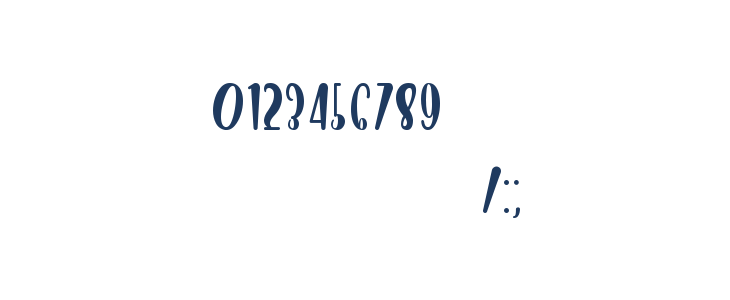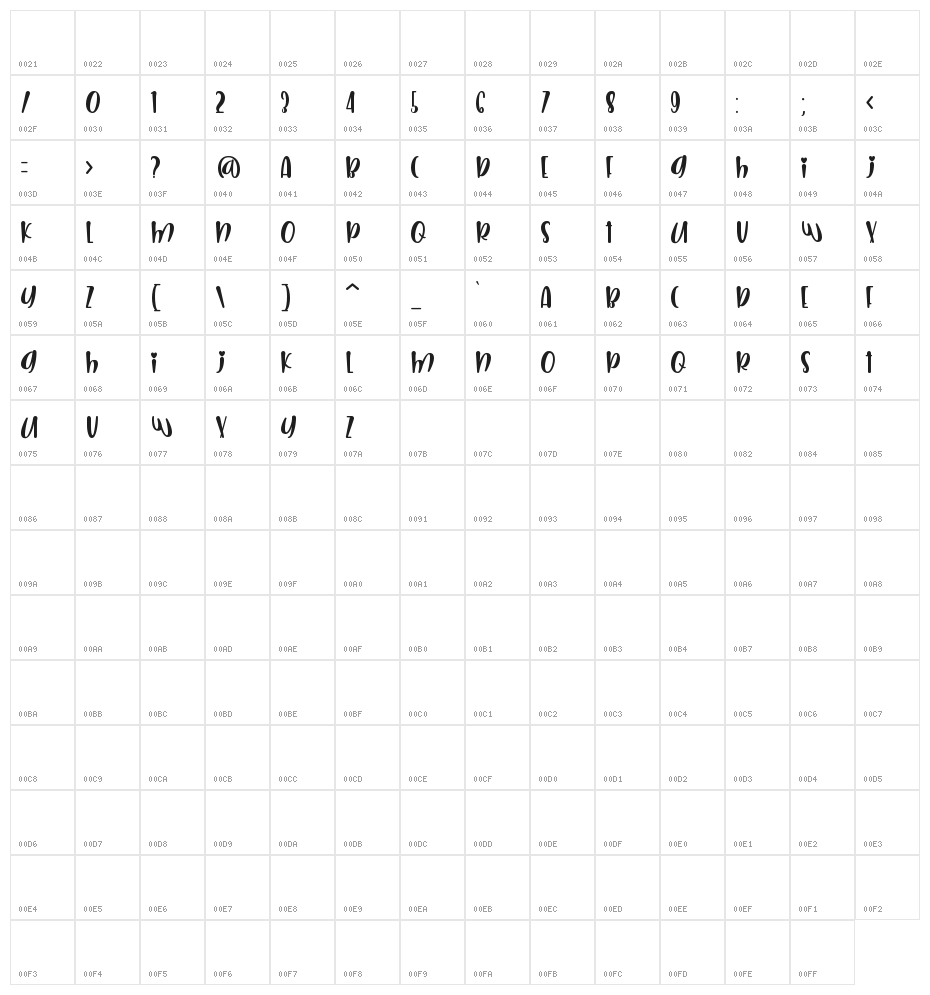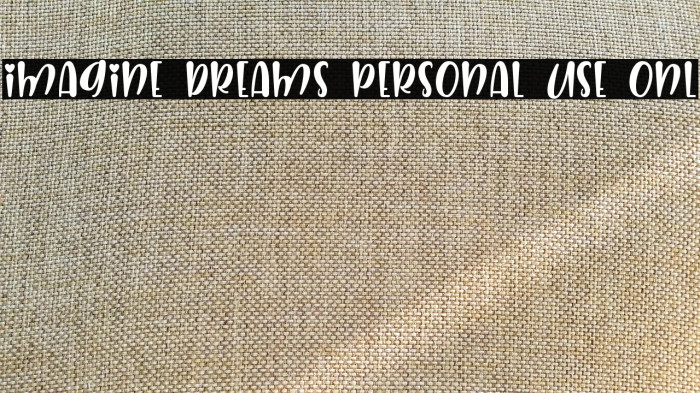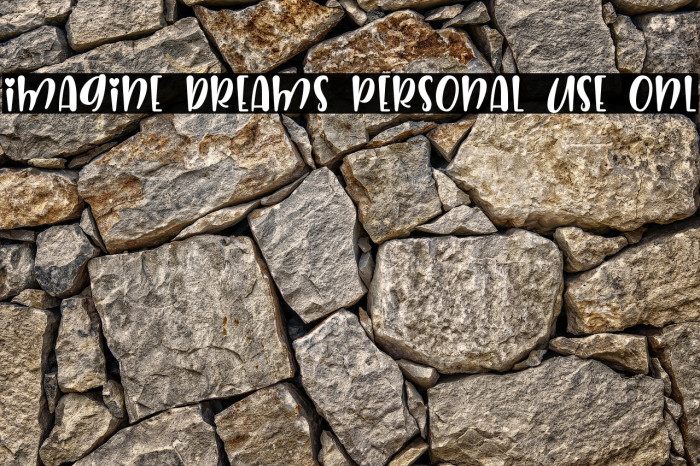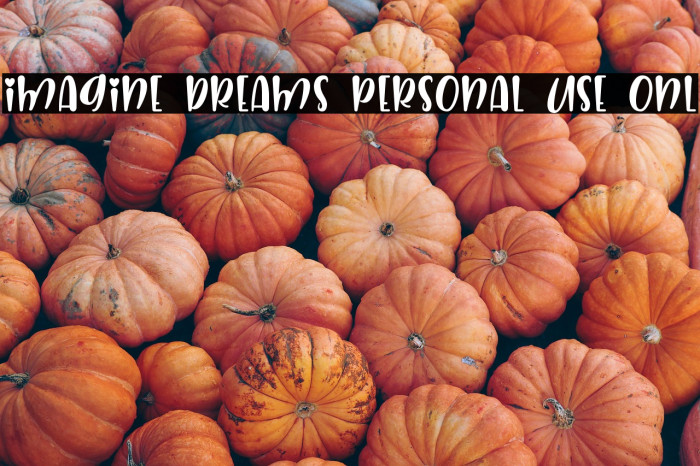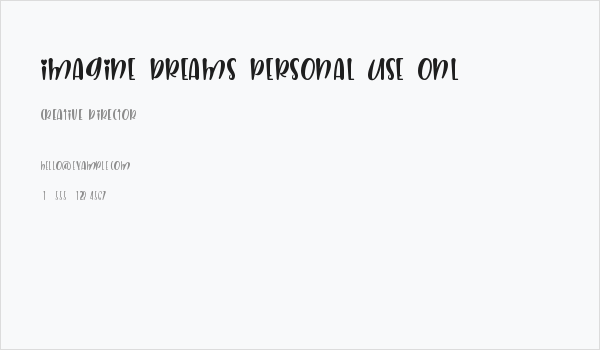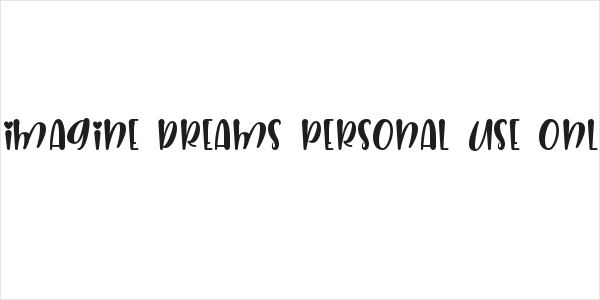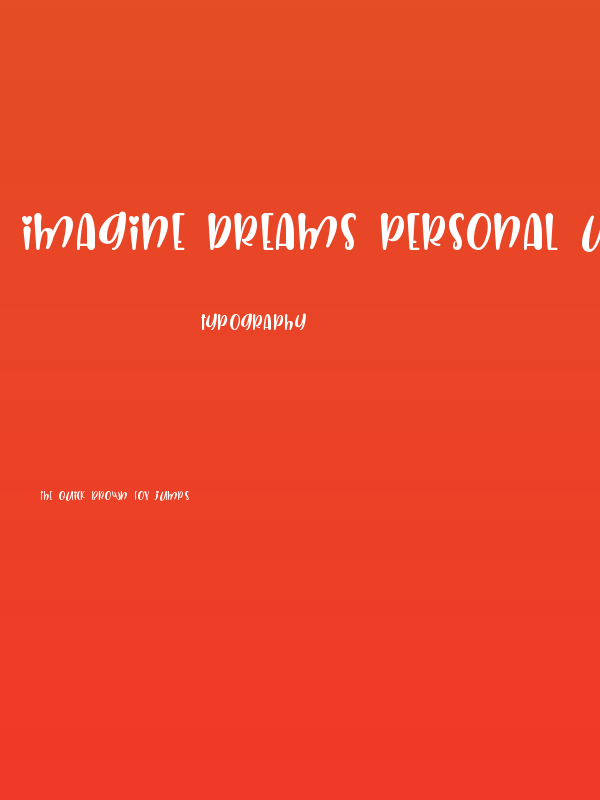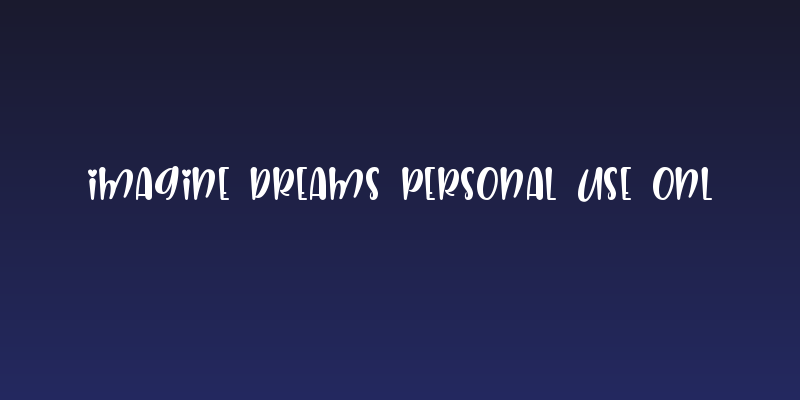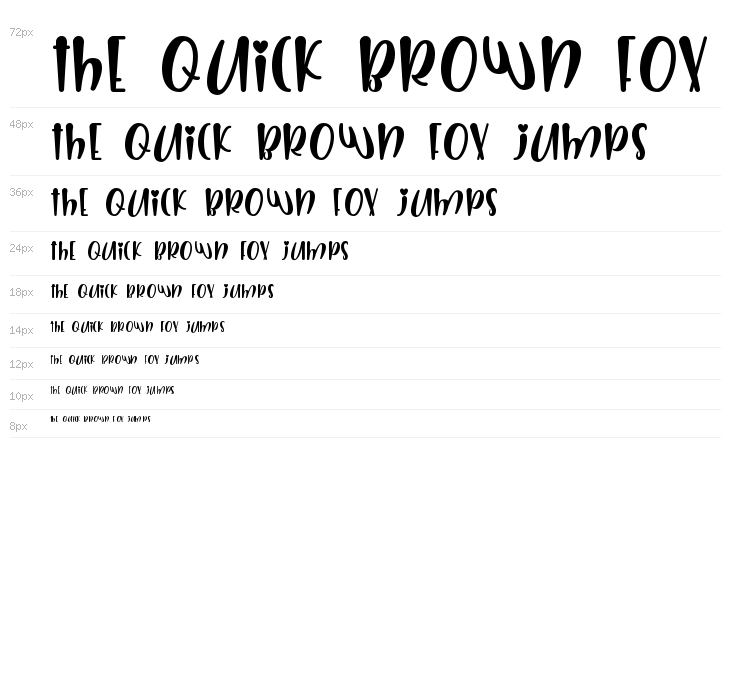
Imagine Dreams Personal Use Onl Font
Imagine Dreams Personal Use Onl Description
This playful and whimsical font features a unique blend of rounded and elongated strokes, creating a lively and energetic appearance. The letters are characterized by their bold, flowing curves and occasional heart-shaped embellishments, adding a touch of charm and personality. The font maintains a consistent stroke width, providing a harmonious and balanced look. The numbers and special characters complement the alphabet with similar stylistic elements, ensuring a cohesive design. This font is ideal for projects that require a fun and engaging aesthetic.